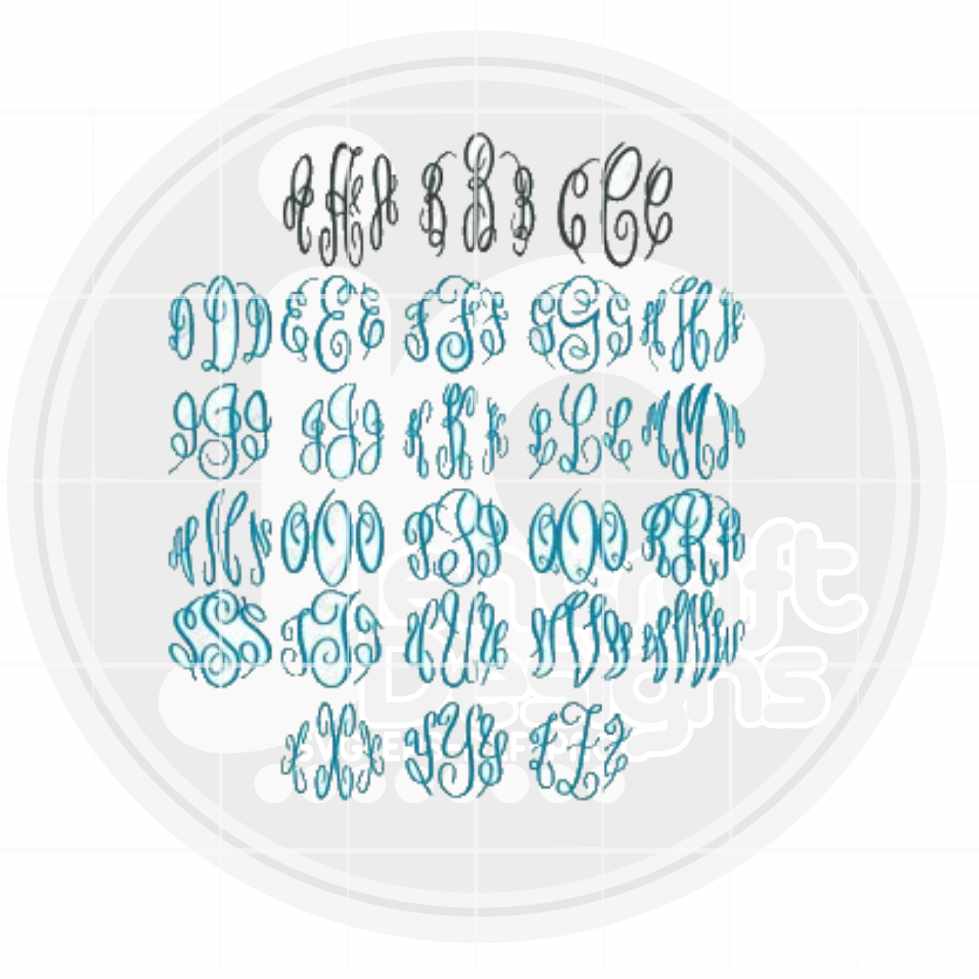
This round monogram font is ideal for Cricut Design Space, Silhouette Studio, Sure Cuts a Lot, Adobe Illustrator, Adobe Photoshop, CorelDraw, Microsoft Word, and any program that supports installed system fonts. To achieve the classic monogram look, type lowercase for the outer letters and uppercase for the center letter. Letters can be ungrouped in Cricut Design Space and Silhouette Studio to adjust spacing.